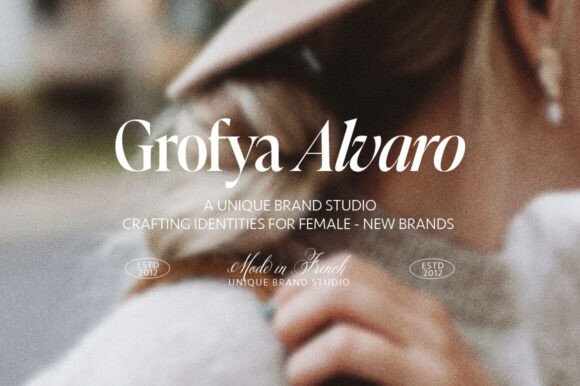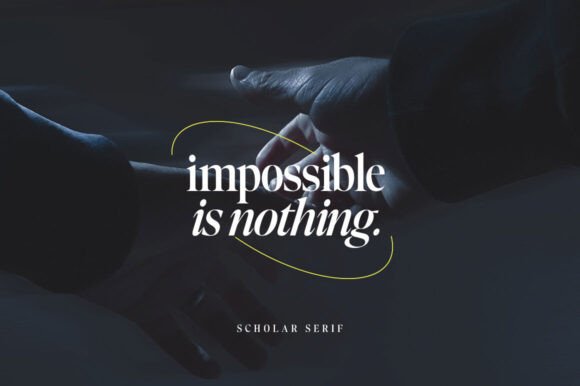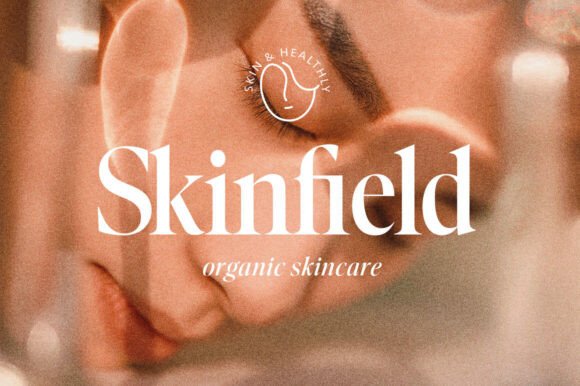
Scholar Typeface Font: Free Download Now
Introduction to Scholar Typeface Font
Scholar is a new editorial serif with clean and smooth lines, tight curves, and subtle yet sharply contrasting serifs.
It is a typeface series that exudes elegance and confidence Scholar comes in two font versions: Regular and Italic.